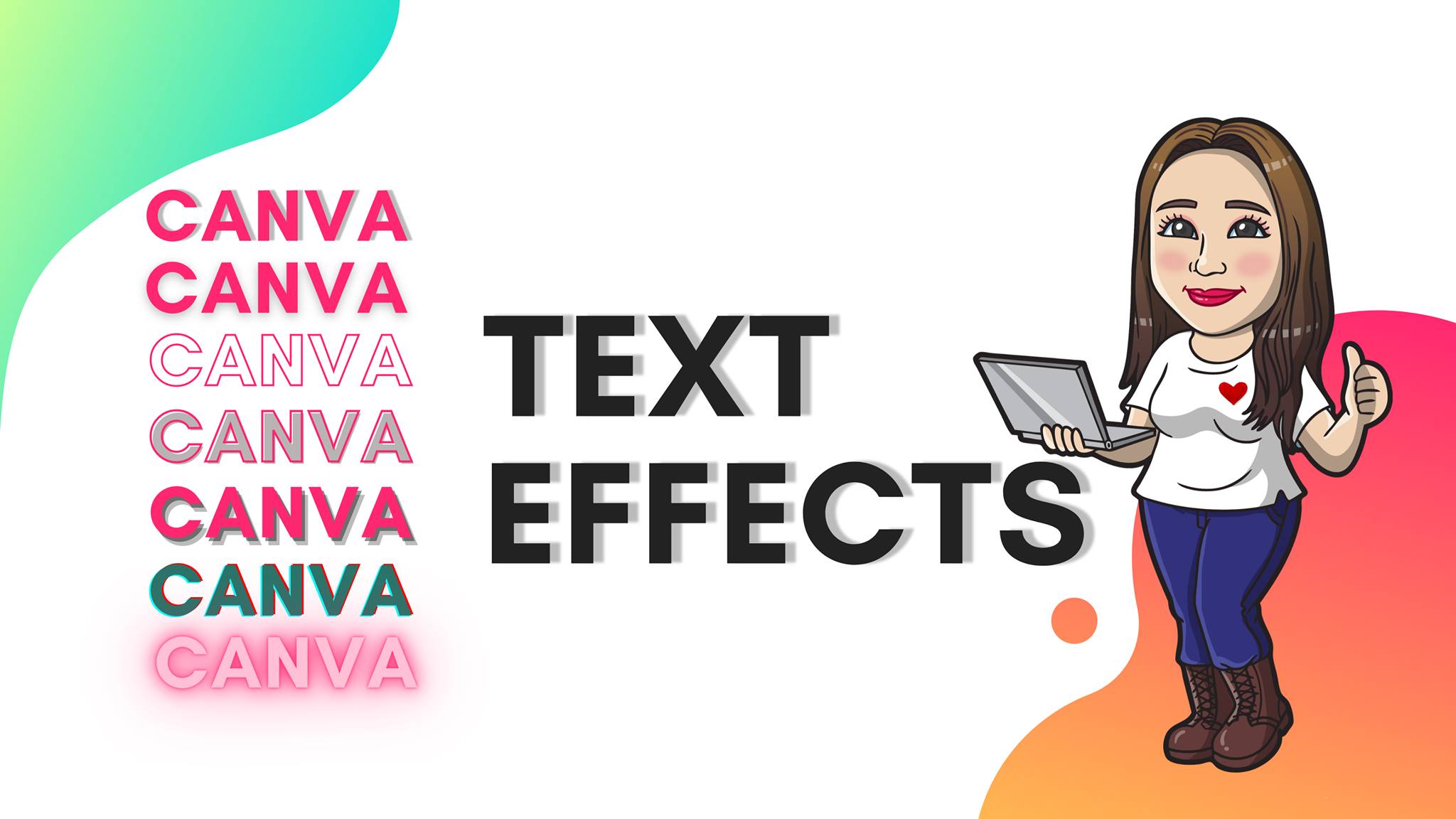
Modern fonts canva. Canvas got you covered. Based on geometric lines and forms modern fonts are clean clear and easy to read. We support otf ttf and woff formats. However despite being quite a classic font its enduring popularity can be attributed to its universal modern appeal.
In this post we have compiled together some of best modern sans serif fonts for your latest project or to inspire you for your next assignment. Larger sizes are acceptable for headings or subheadings. You probably noticed there are some fonts on canva that were not mentioned in this post. Form follows function in modernist design and the principle certainly applies to modern fonts.